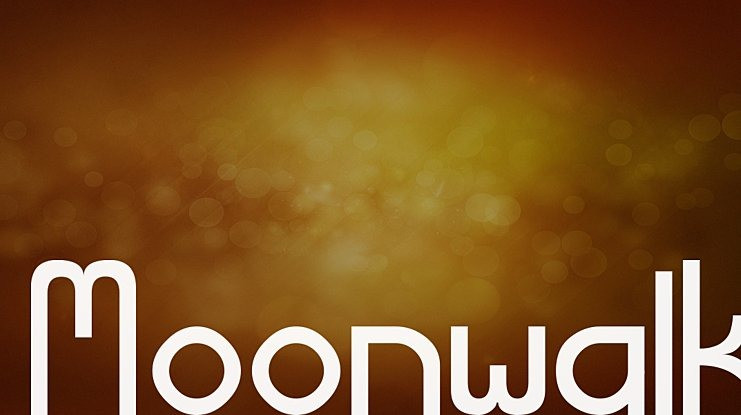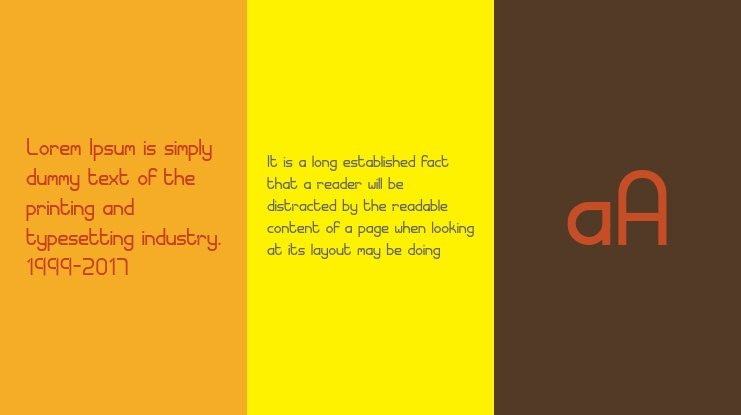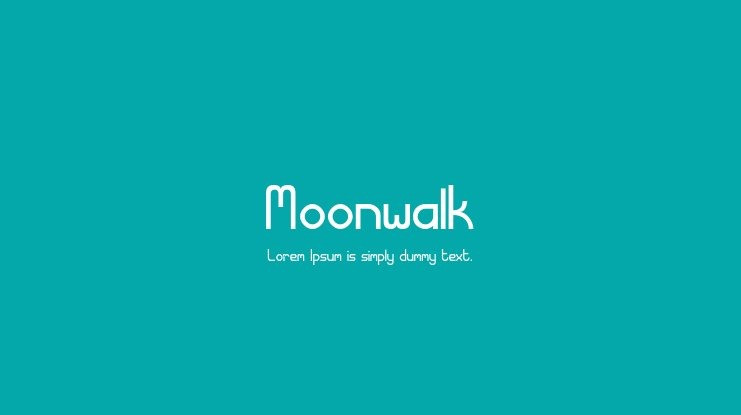
Moonwalk Sans Serif Font, this is a versatile typeface with it’s clean and sleek build. Rounded lowercase emphasize the modern and clean feel. The overall typeface is geometric to bring order and alignment in between the letters It is best used as logo, headline, and title. I hope you enjoy.
Moonwalk Font
| Classification: | Display Fonts, Sans Serif Fonts |